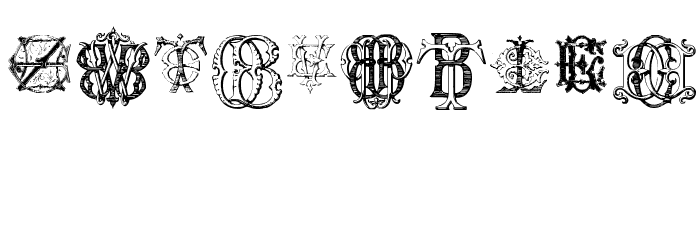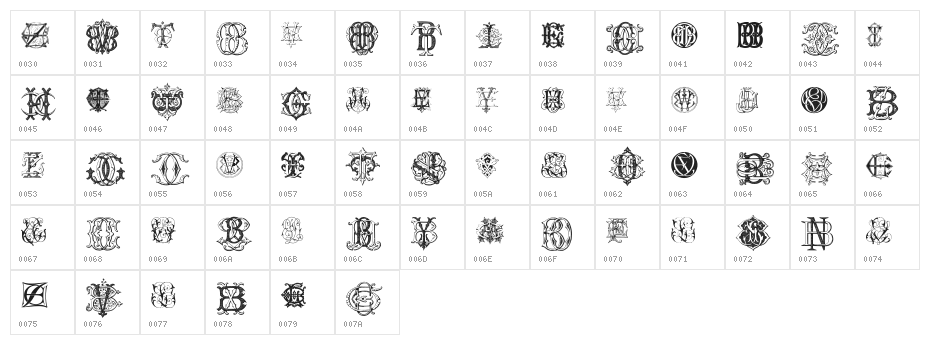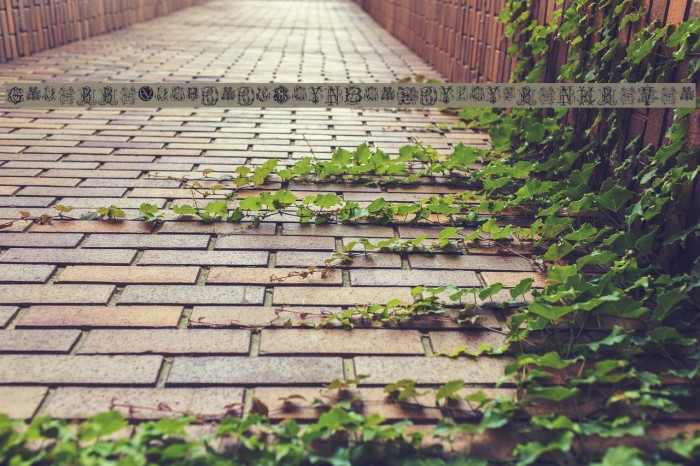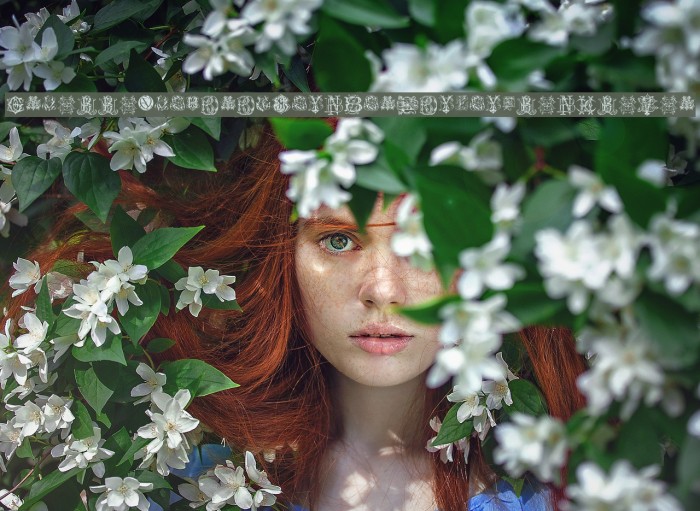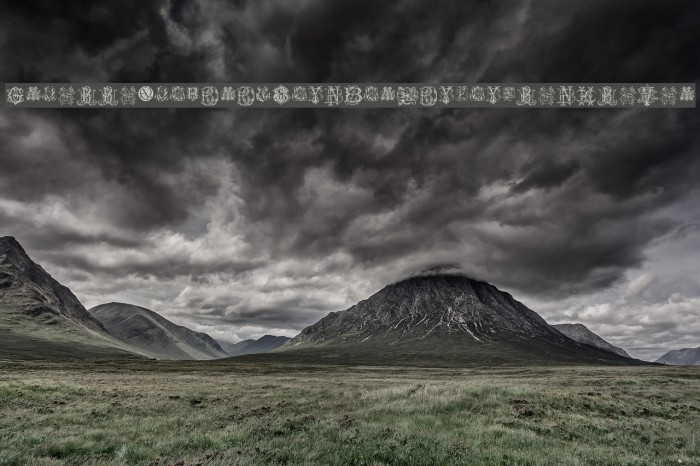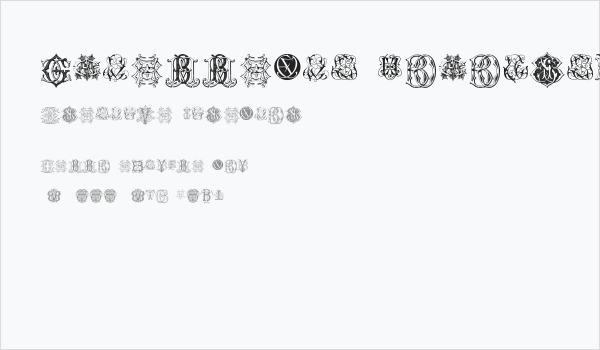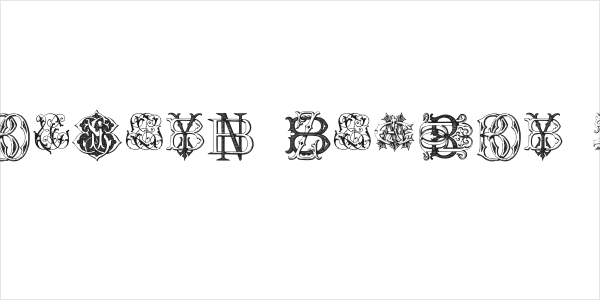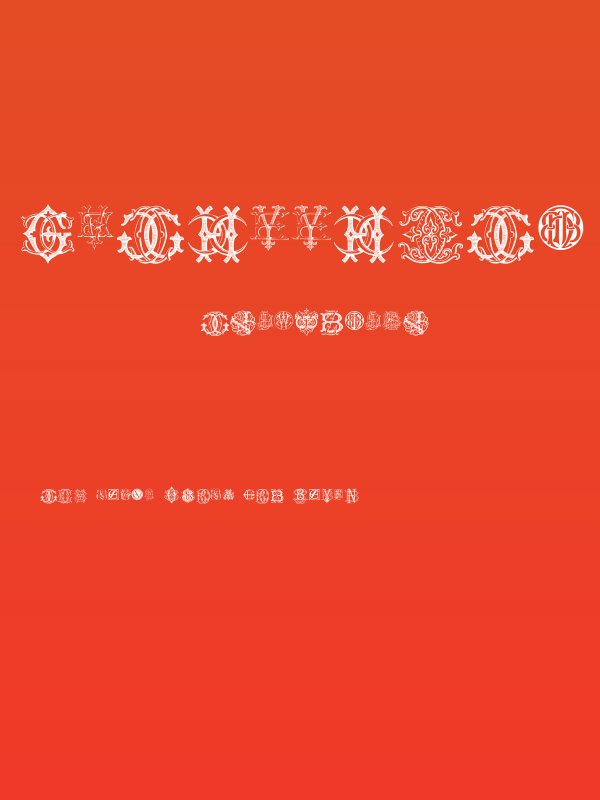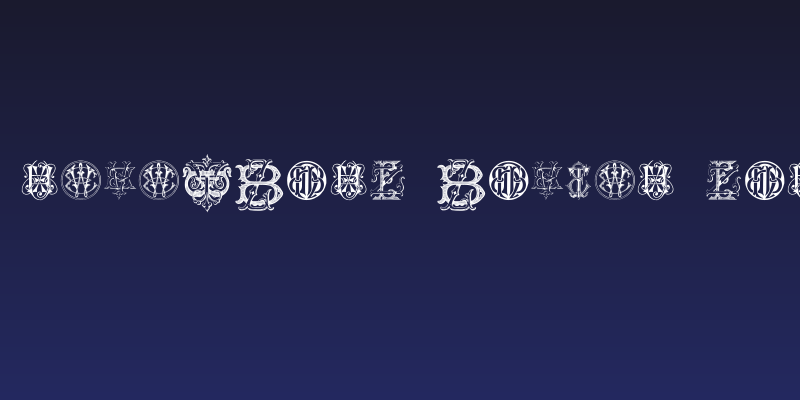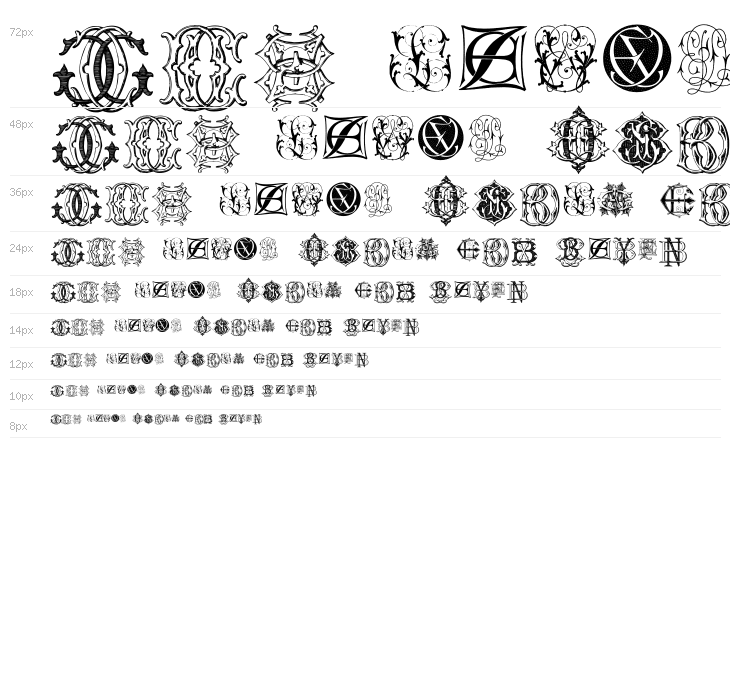
Intellecta Monograms Random Samples Eleven Font
Intellecta Monograms Random Samples Eleven Description
This font is a highly decorative and intricate collection of monograms, each letter is uniquely designed with elaborate flourishes and embellishments. The characters are intertwined with ornate details, making them appear almost like pieces of art. The style is reminiscent of vintage or classical monograms often used in formal invitations or luxury branding. Each letter is distinct, with a high level of detail that suggests a handcrafted quality. The overall appearance is complex and visually striking, suitable for projects that require a touch of elegance and sophistication.
| Use Case | Logos, Decorative elements |
| Proposed Projects | Ideal for luxury branding, wedding invitations, formal stationery, and decorative art projects. |